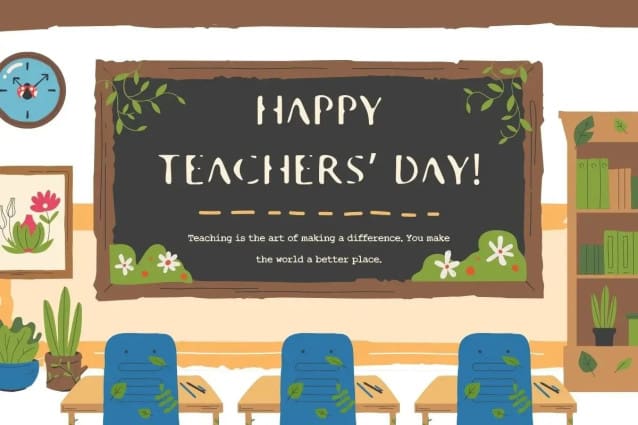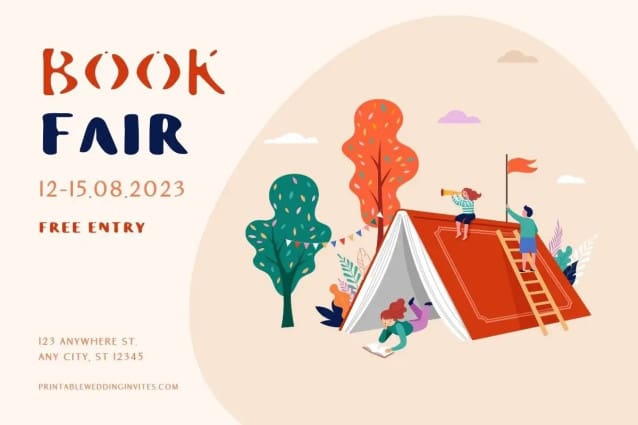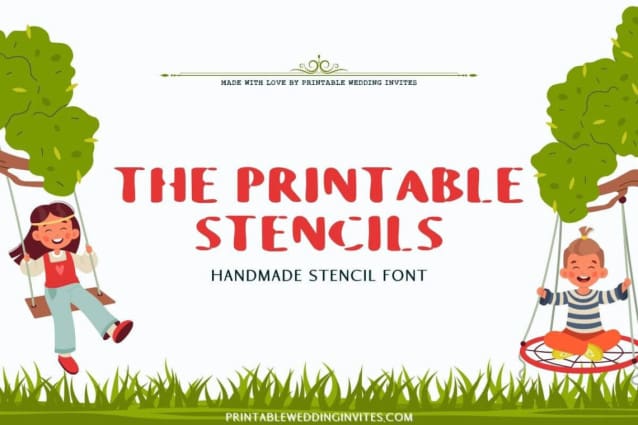
The Printable Stencils Font
The Printable Stencils Font, ideal for both fun and practical projects. Use it for decorating, crafting, or organizing with ease.